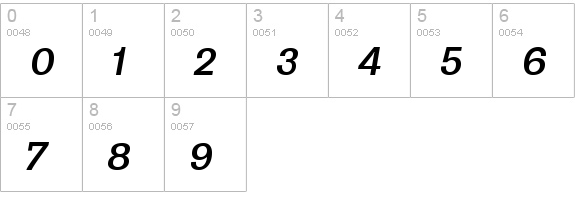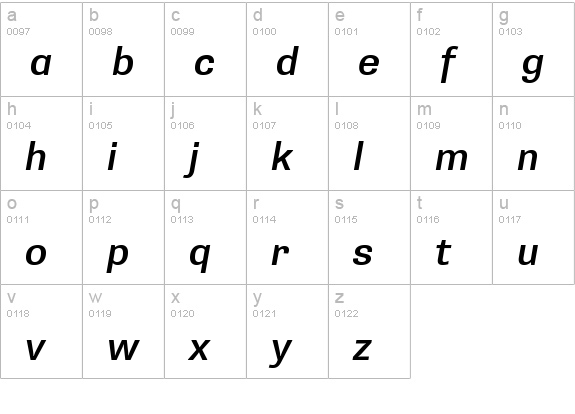
Supria Sans Medium Oblique Font Details
Supria Sans Medium Oblique is a balanced, medium-weight, italic variant in the Supria typeface family \xE2\x80\x94 well suited to sub-headlines, navigation, and balanced editorial work.
Supria Sans Medium Oblique font strikes the perfect balance between modern sophistication and effortless elegance. Its slanted design adds a touch of dynamism, making it ideal for conveying a sense of movement and energy in your projects. The medium weight gives it a strong presence without overpowering the text, making it versatile for various design applications. This font's clean lines and subtle curves exude a sense of professionalism and refinement, making it a popular choice for corporate branding, editorial design, and web typography. Whether used for headlines, subheadings, or body text, Supria Sans Medium Oblique font ensures clear and legible communication while adding a touch of style to your designs. And the best part? This exceptional font is available for free download at FontsMarket.com. Take advantage of this opportunity to enhance your design projects with the timeless appeal of Supria Sans Medium Oblique font.